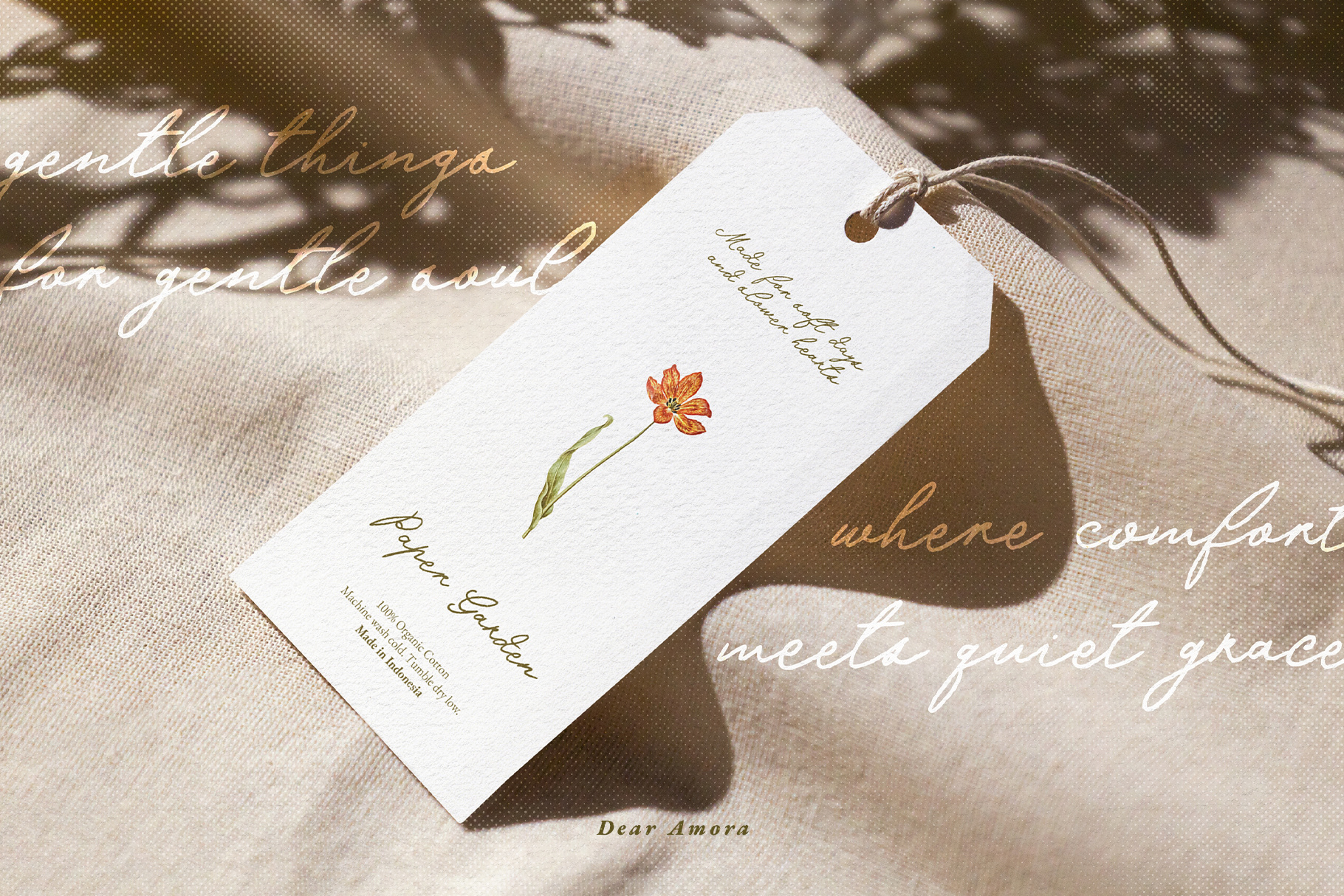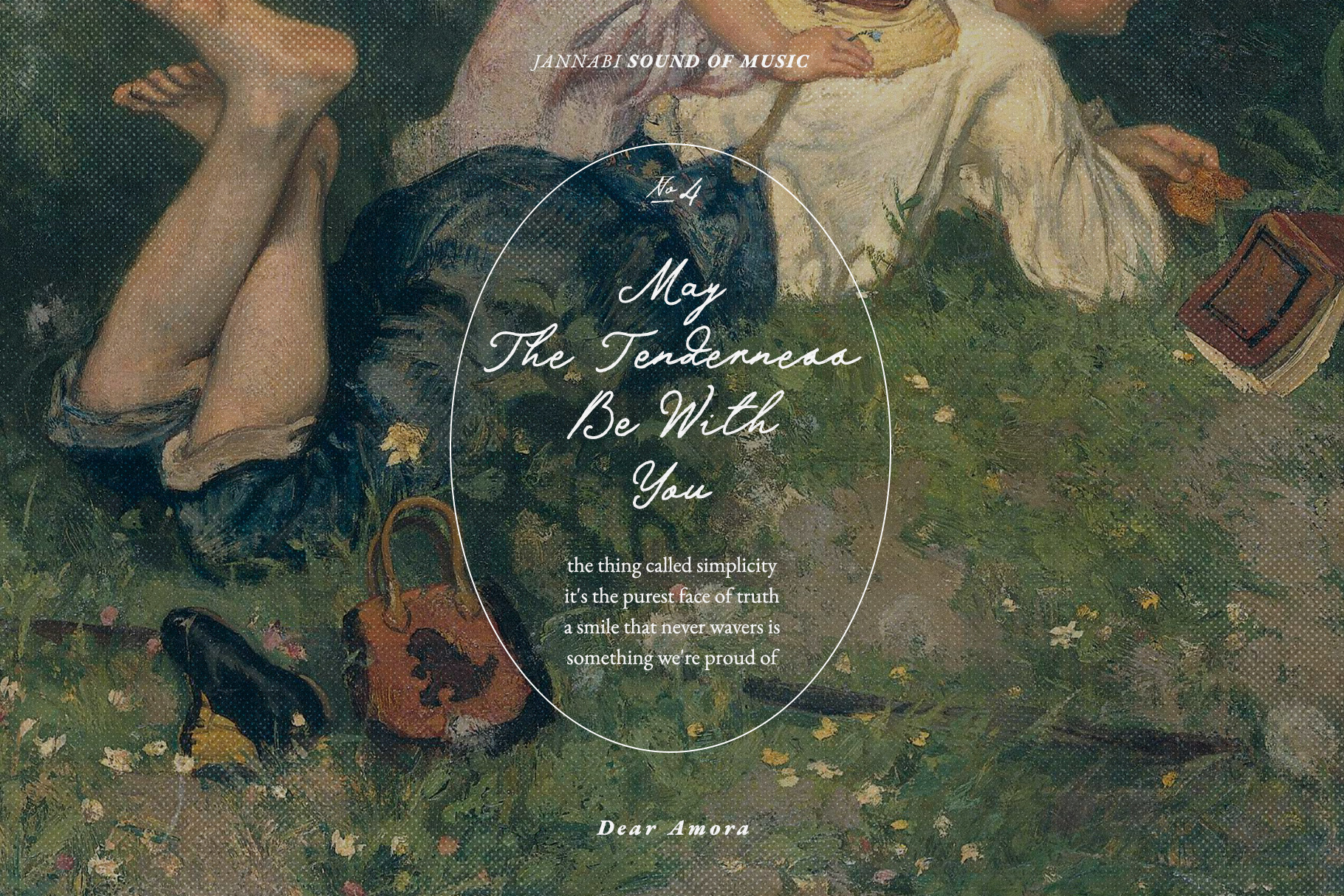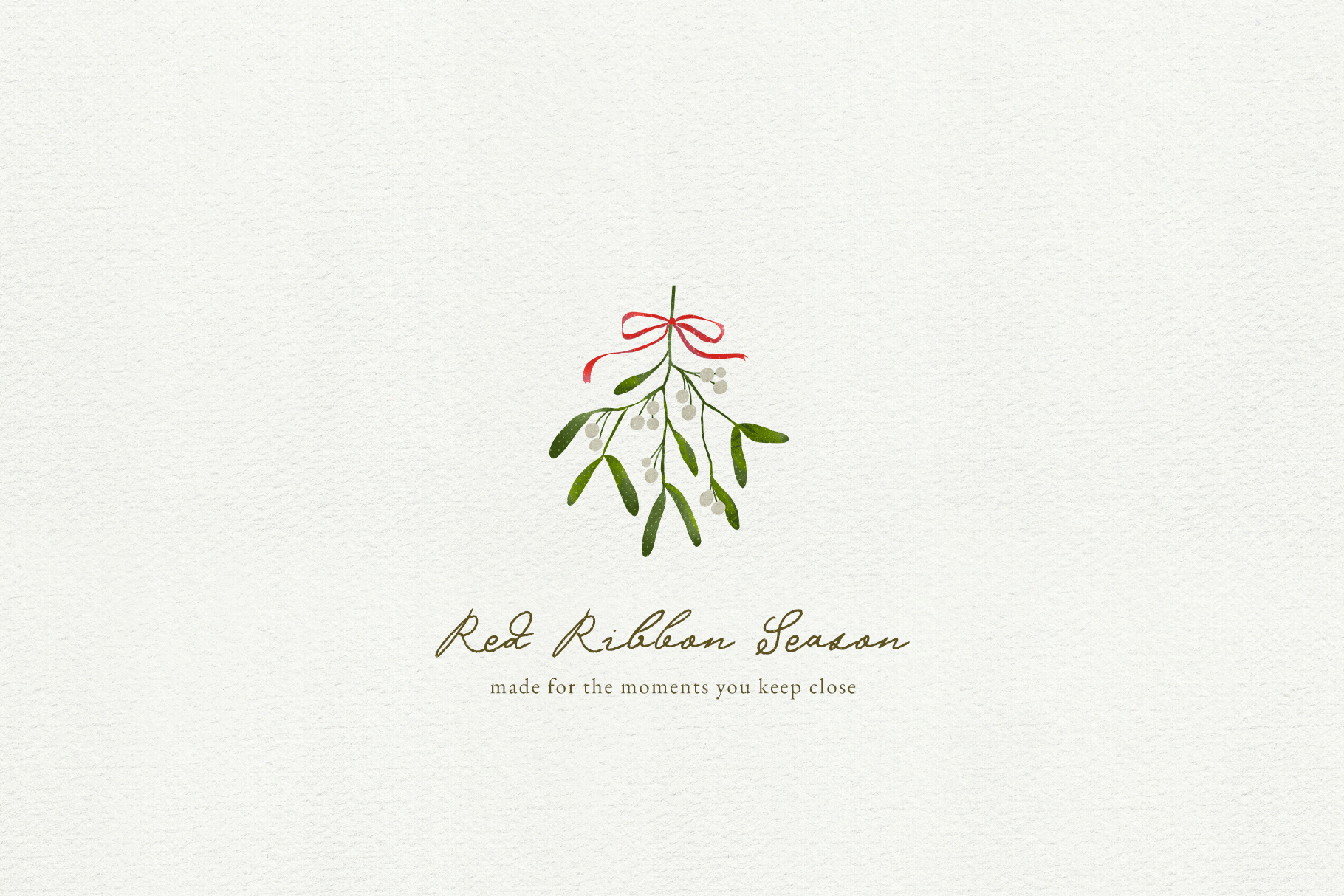
Dear Amora Handwritten Script Font
Dear Amora is a handwritten font that feels like a love letter left between the pages of an old journal. Its smooth alternates and delicate ligatures make each letter connect seamlessly, creating endless variations that feel effortlessly personal. Perfect for stationery, wedding invitations, brand designs, or any project that deserves a touch of sincerity.
Dear Amora Font is packed with everything you need, including uppercase and lowercase letters, numbers, punctuation, alternates, and ligatures. Multilingual support.​​​​​​​